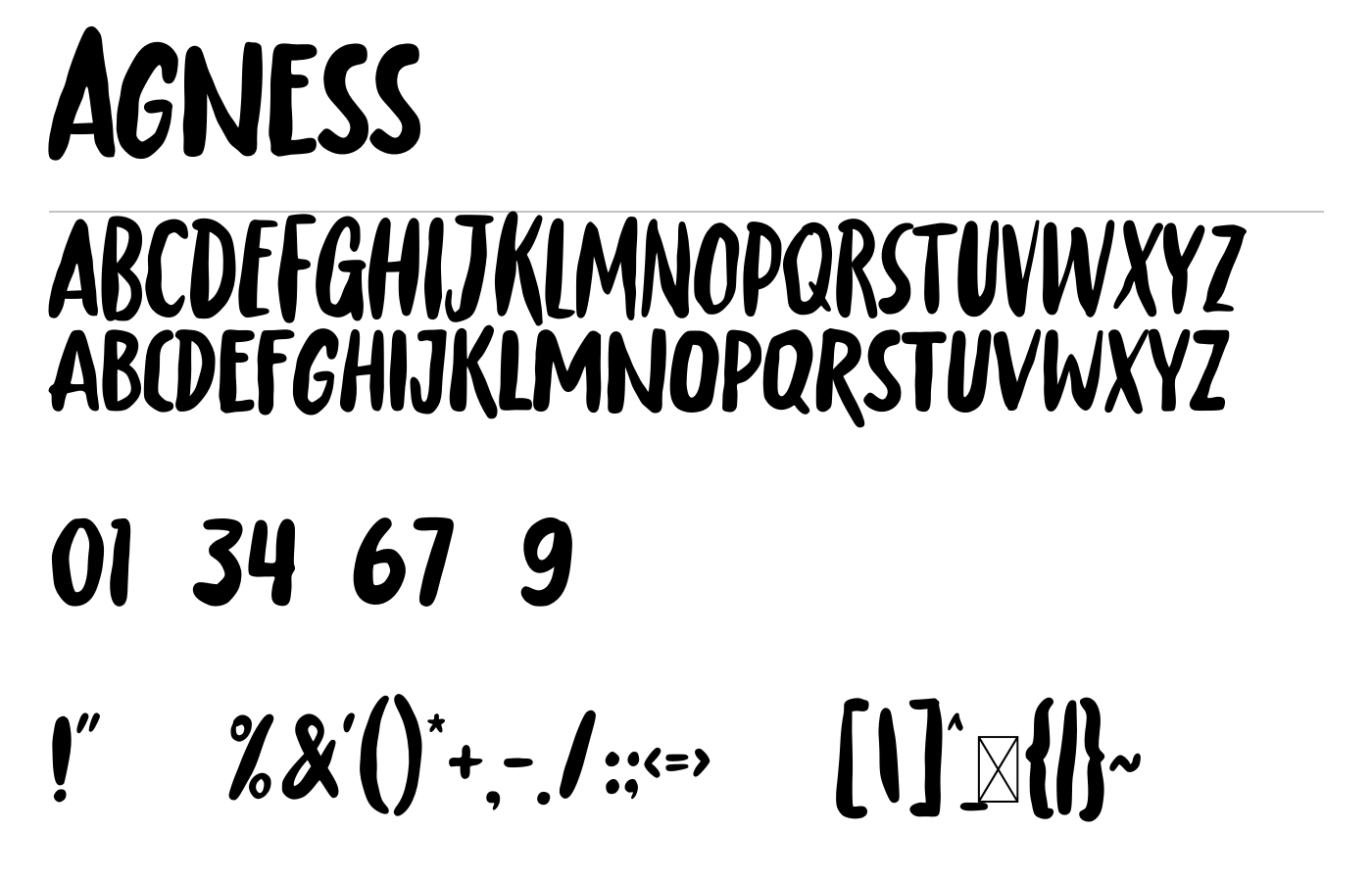
Agness is a playful and informal sans serif font with a hand-drawn feel, featuring irregular shapes and varied stroke widths that add personality and warmth. Its narrow width and tall, slightly condensed letterforms make it eye-catching and perfect for creative, casual designs that want to convey friendliness and approachability. This font works best in headlines, posters, and branding where a unique, fun character is needed.
Agness Font
About Agness Font
| Font family | Agness Font |
| Designer | Anang F & Malik Wsn | Gassstype© Studio 2022 |